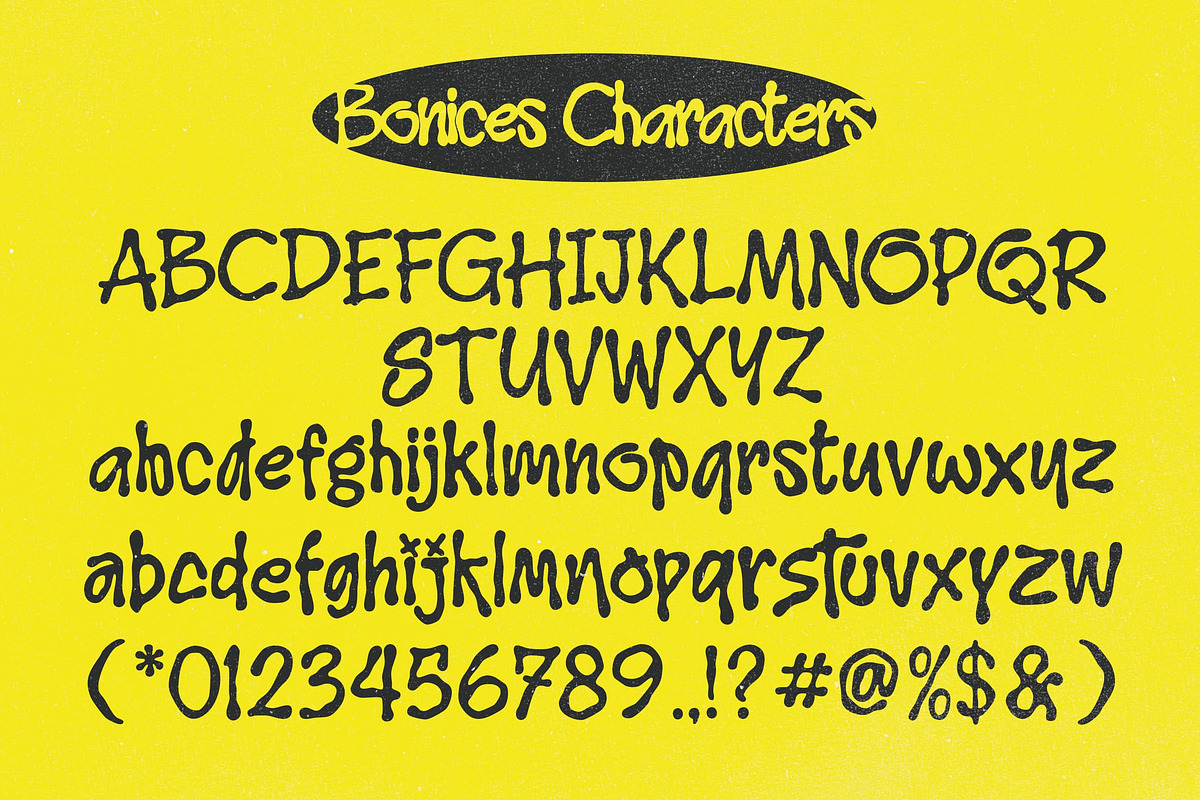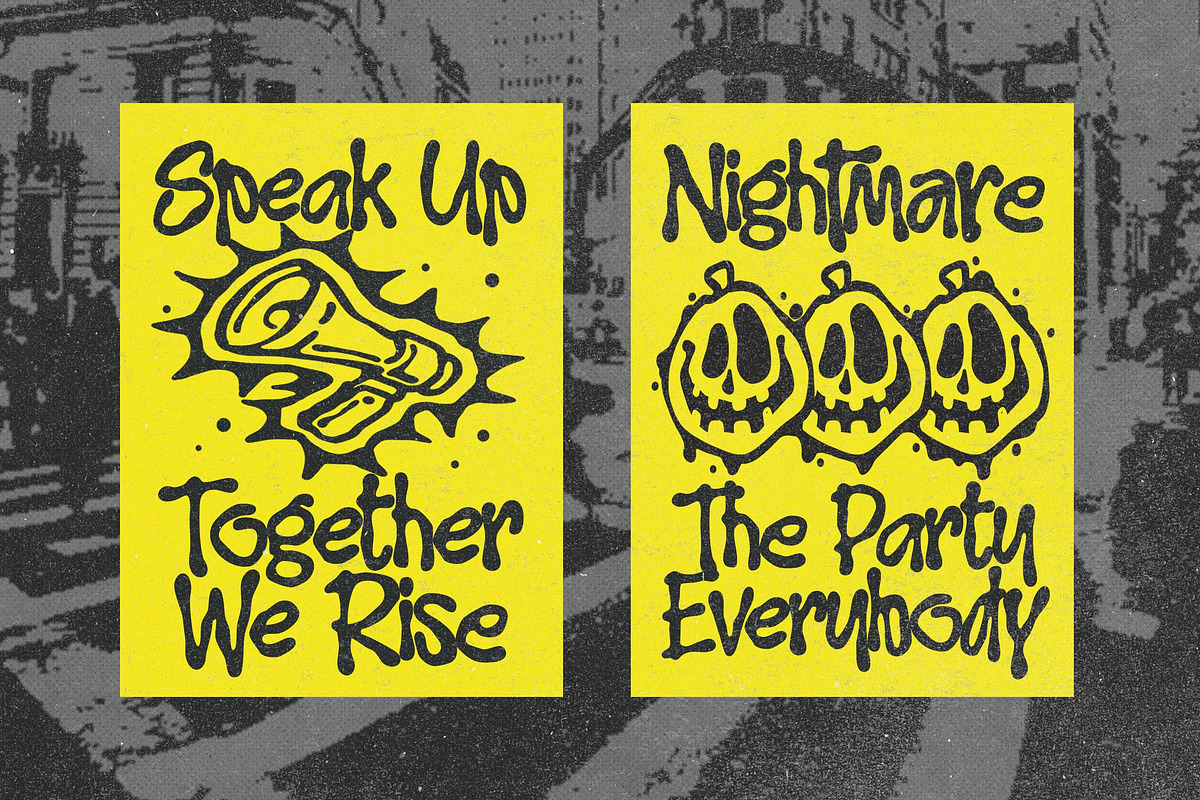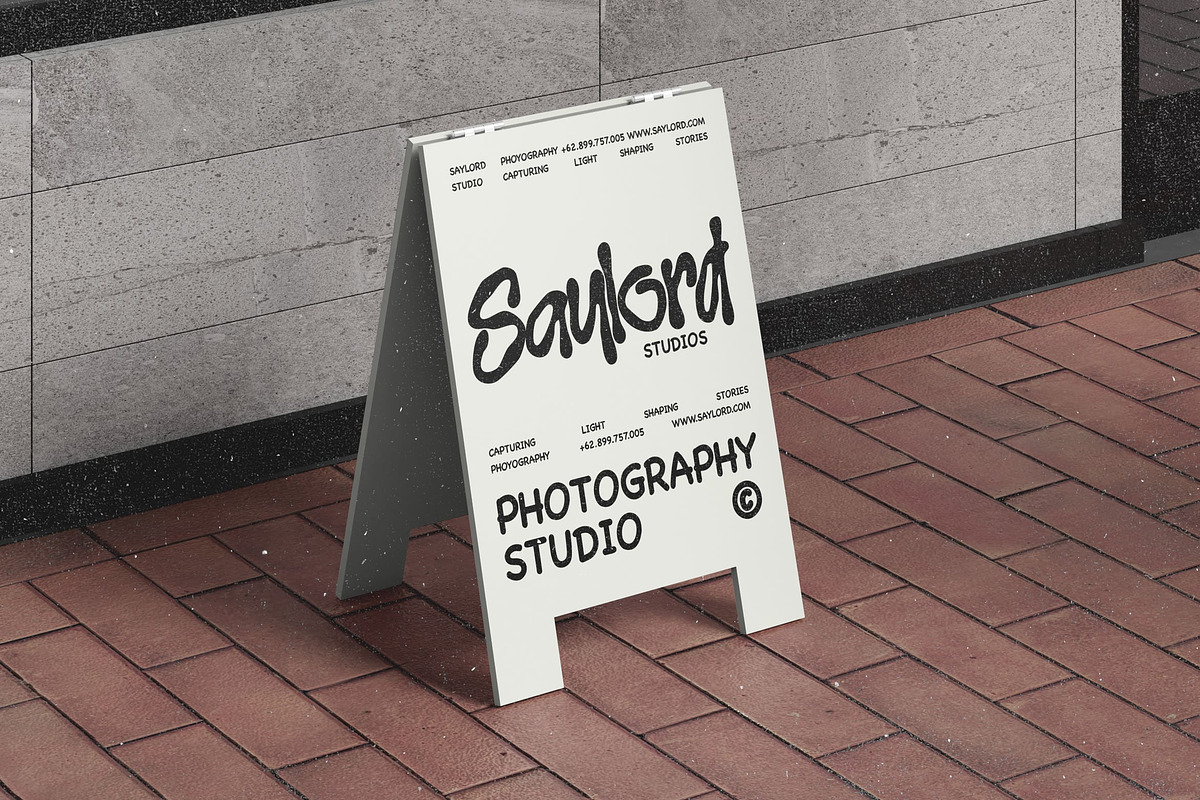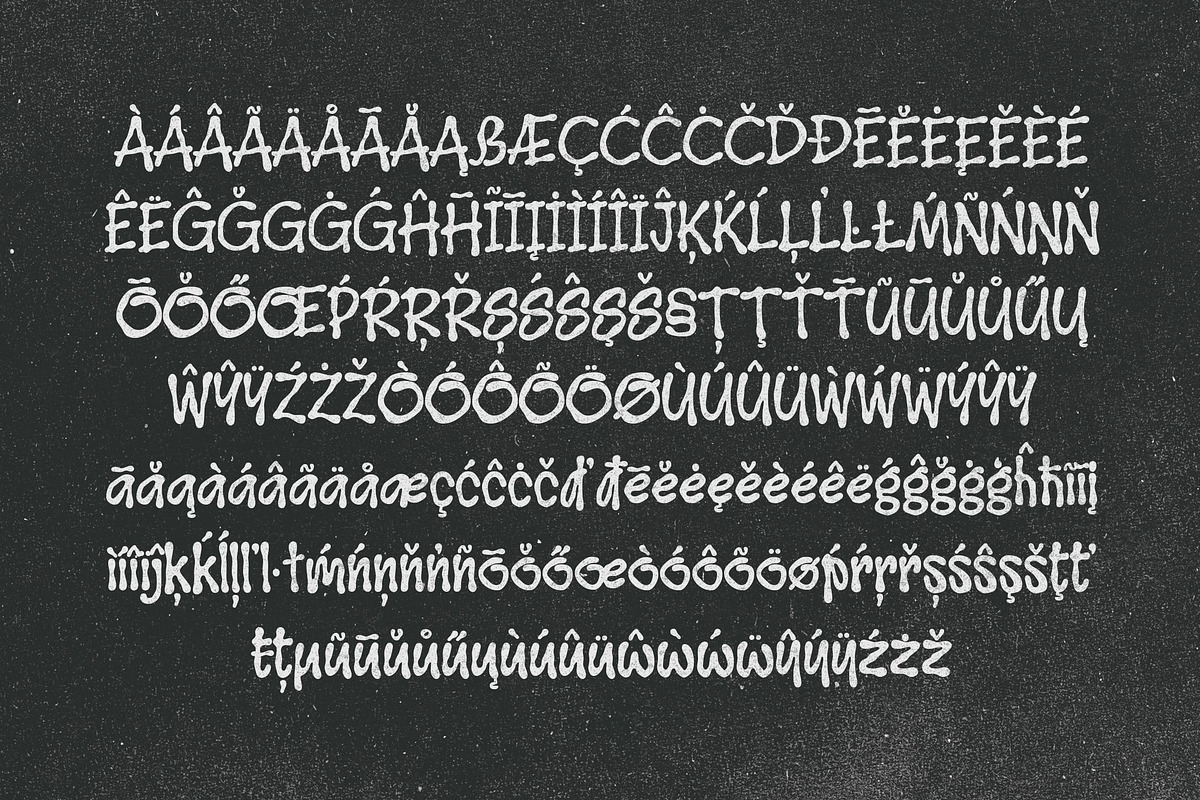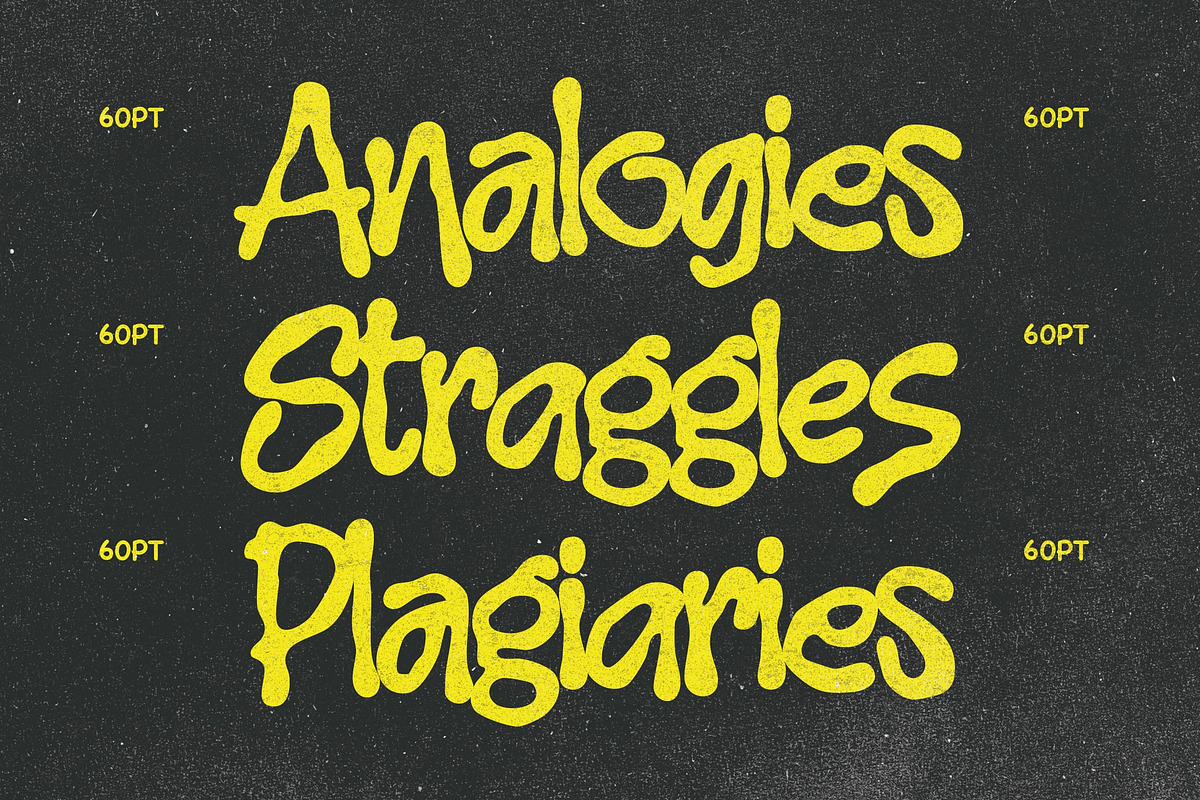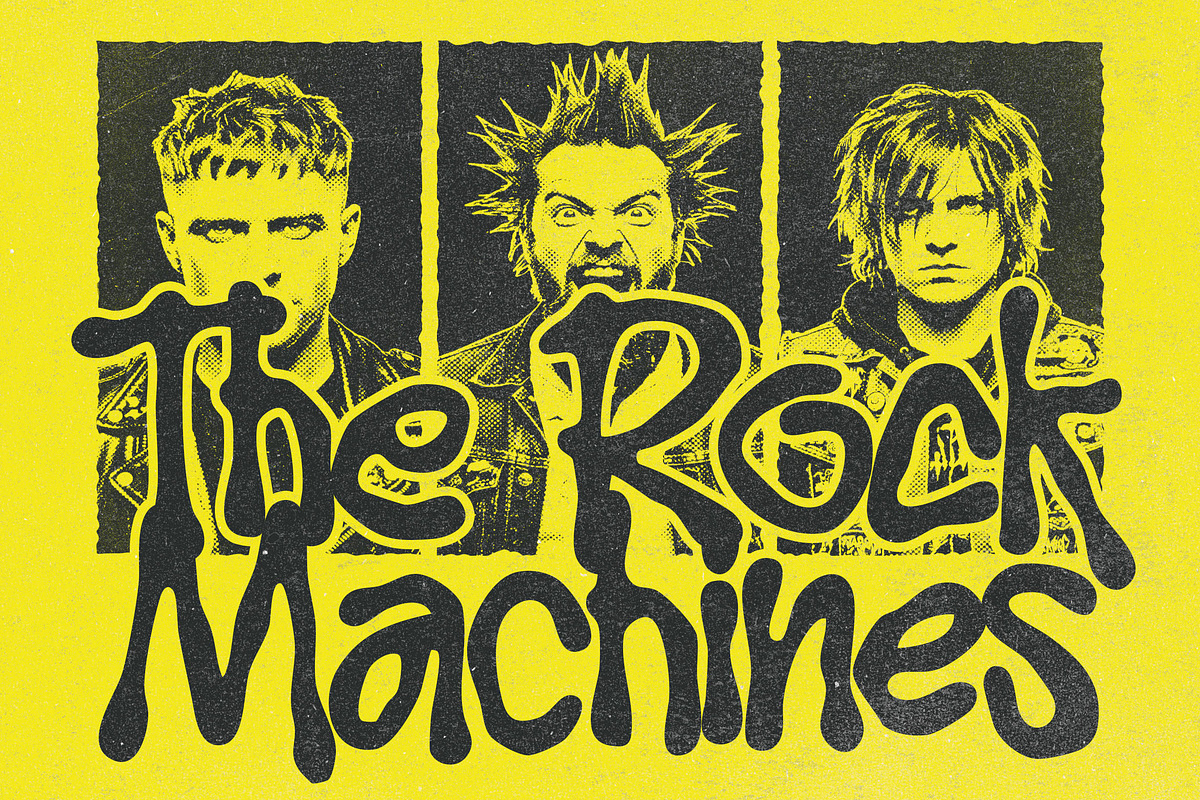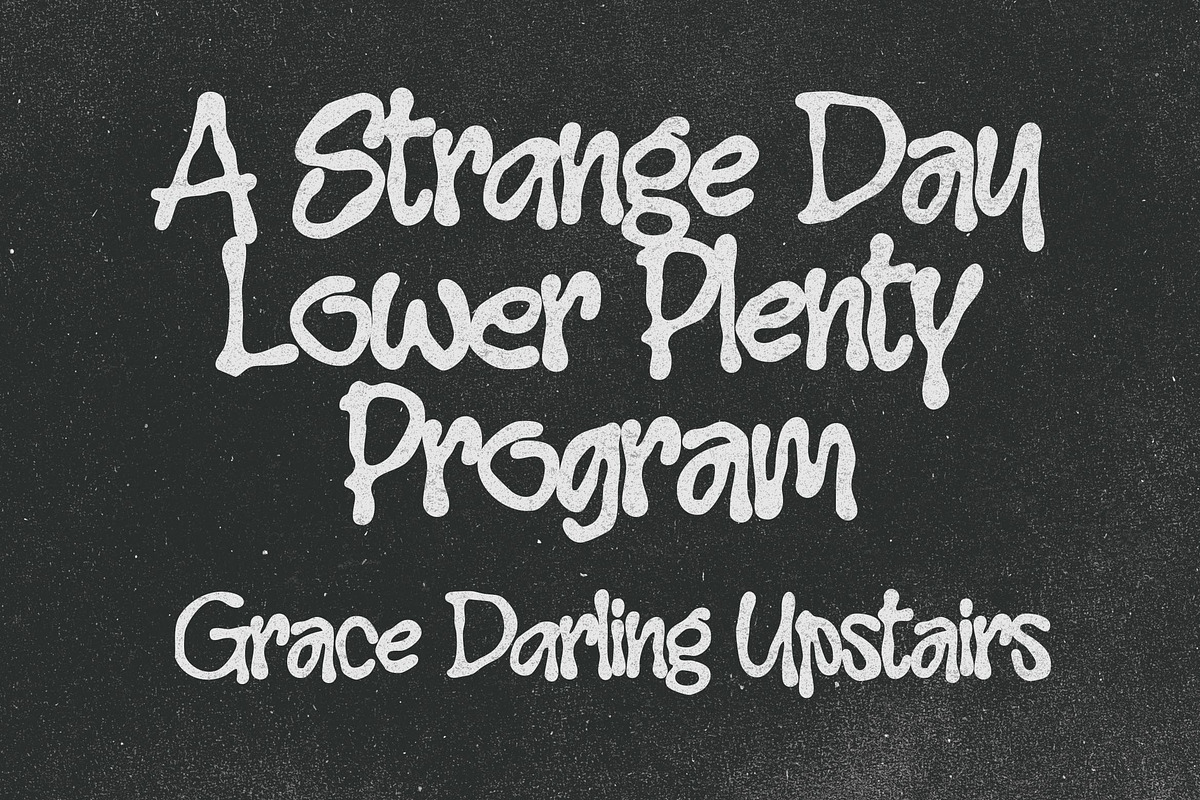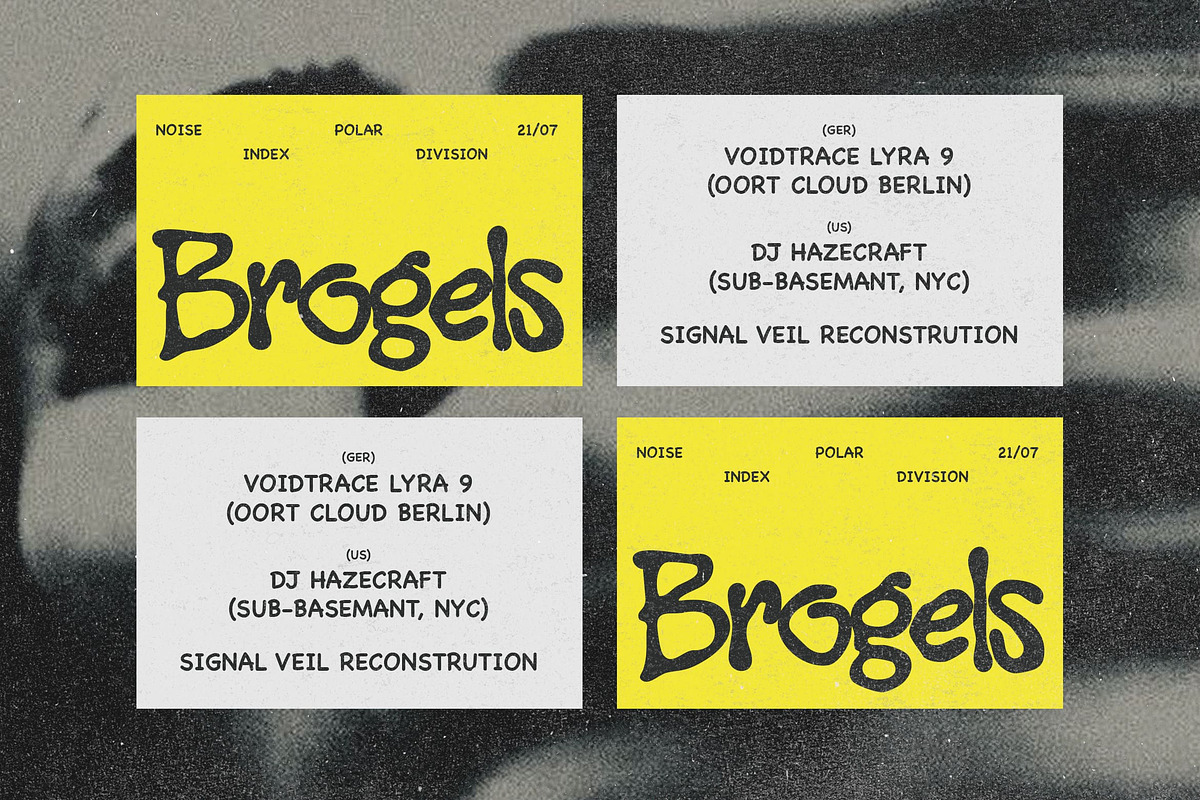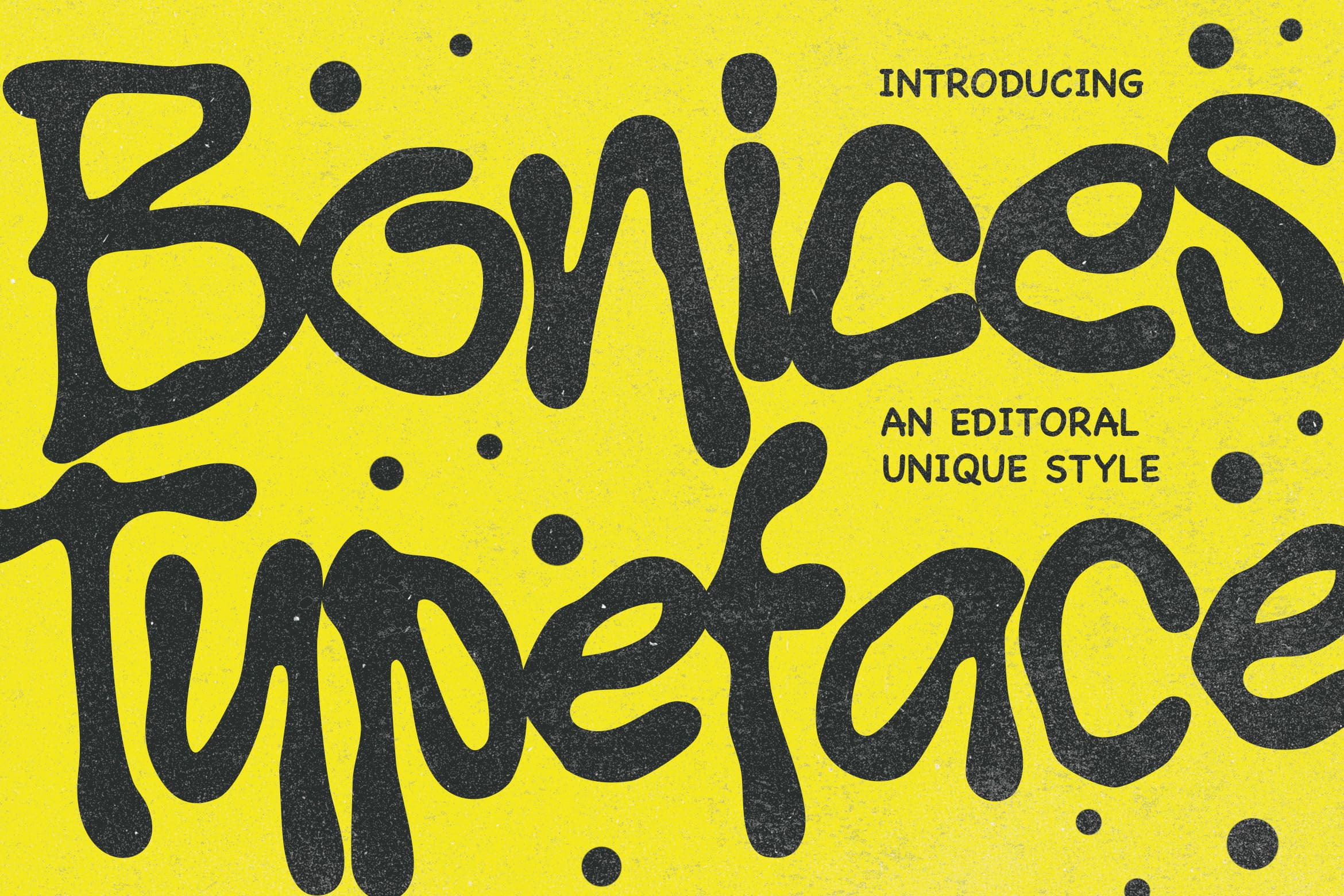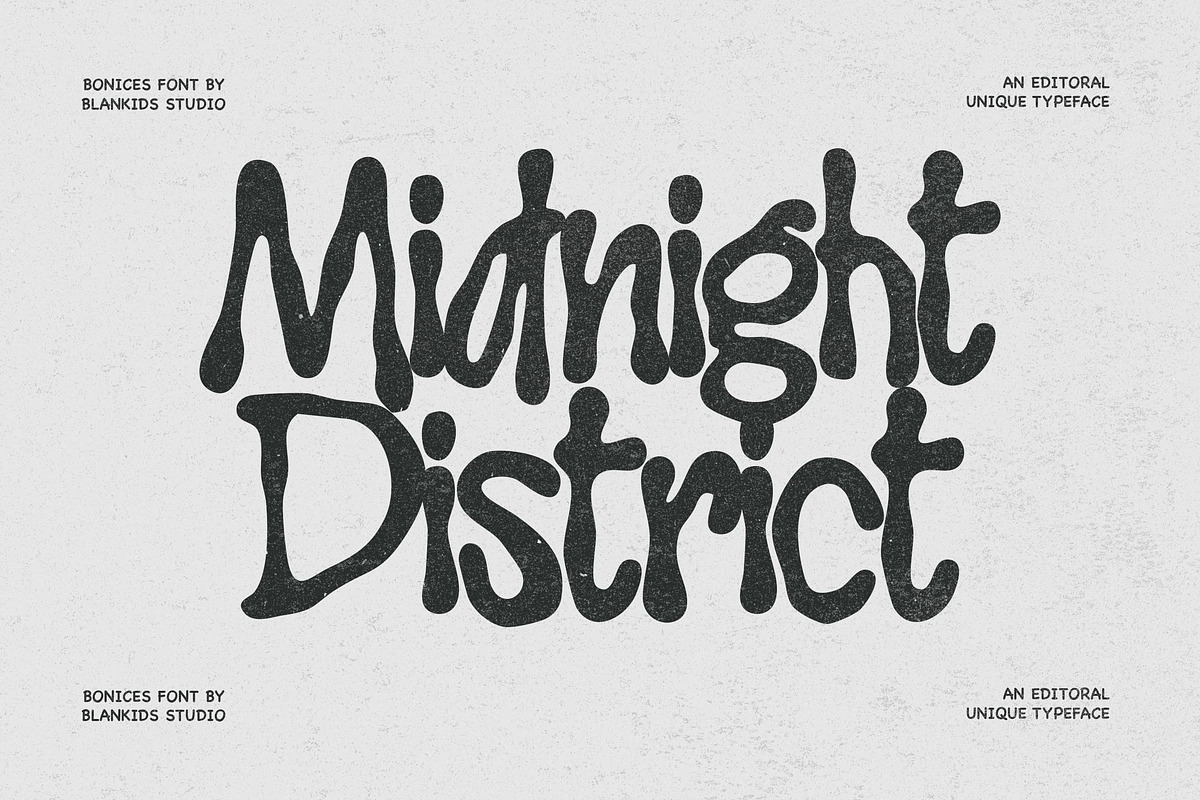
Bonices - Editorial Display Typeface
Bonices is a bold and expressive display typeface inspired by raw hand-drawn lettering, underground zine culture, and rebellious editorial design. Its fluid, organic shapes and playful imperfections create a strong visual personality that feels energetic, unconventional, and impossible to ignore.
Designed to stand out, Bonices is perfect for music posters, album covers, magazine headlines, streetwear branding, creative packaging, social media graphics, and experimental visual projects. The handcrafted appearance brings a human touch while maintaining a contemporary and trend-driven aesthetic.
Whether you’re creating a loud statement or adding artistic character to your design, Bonices delivers a unique voice that feels both edgy and approachable.